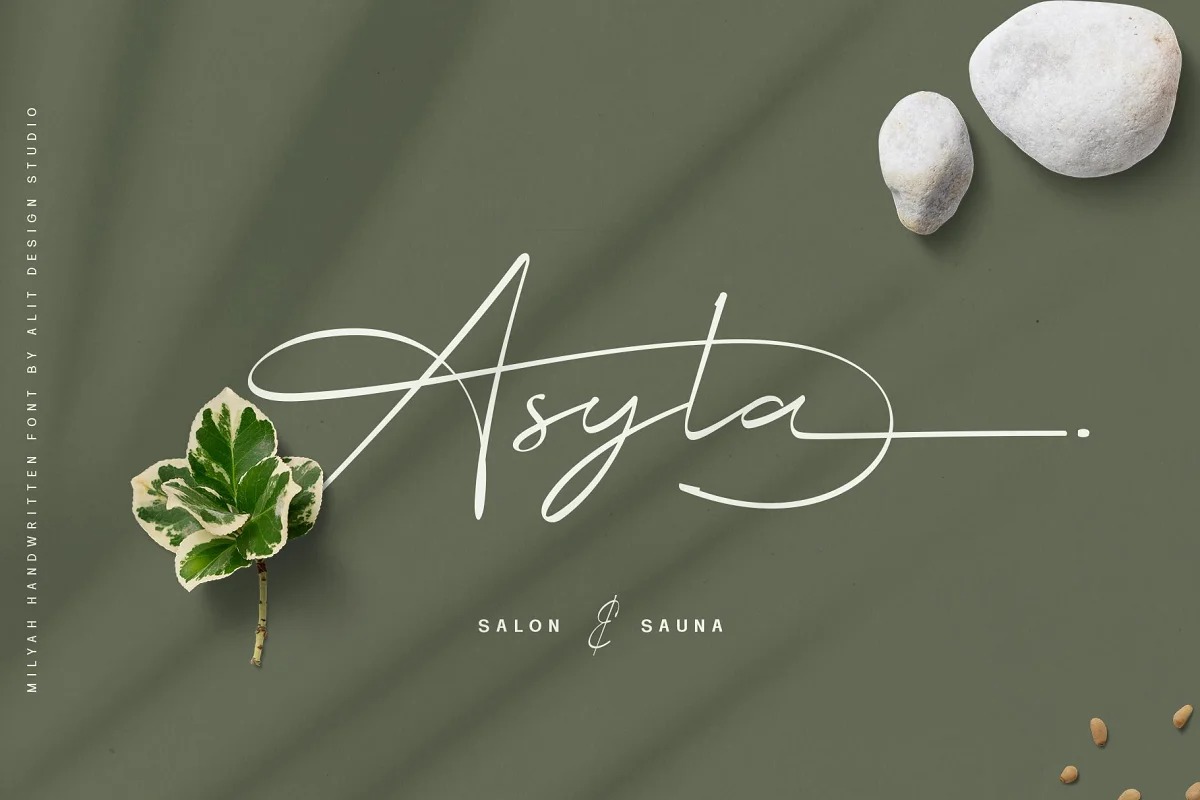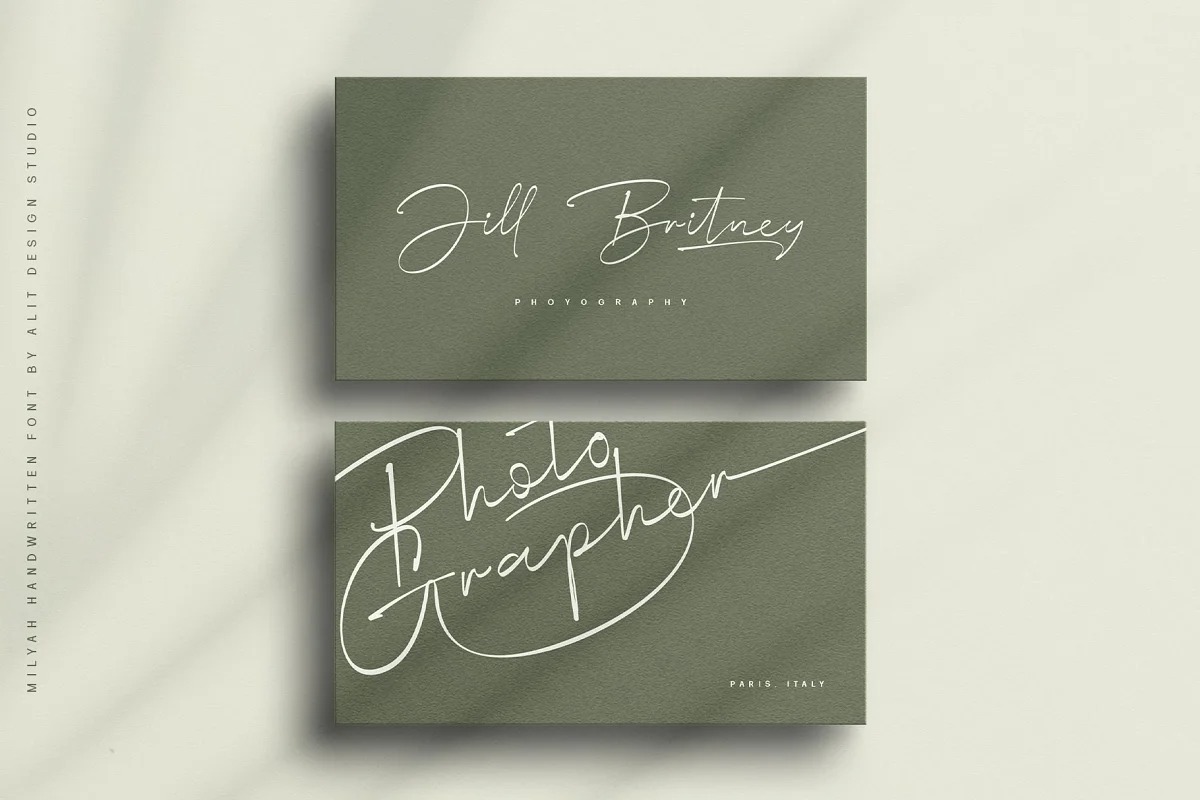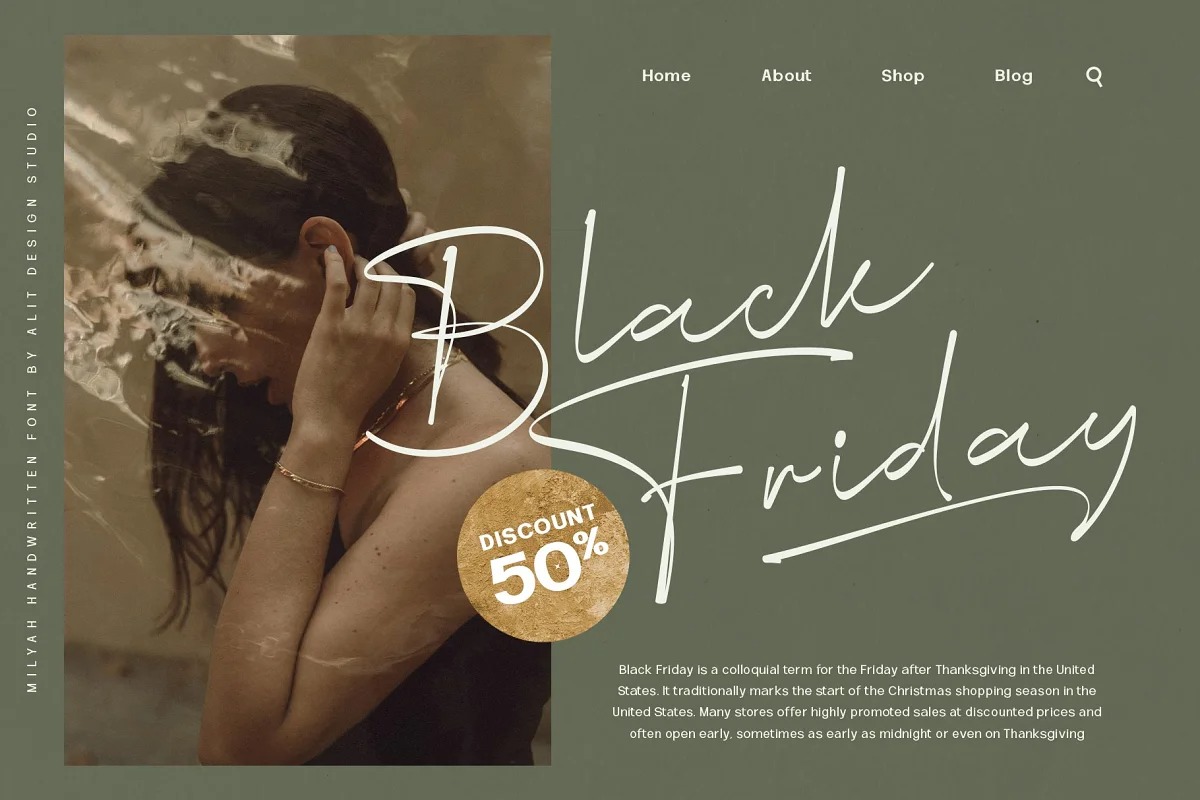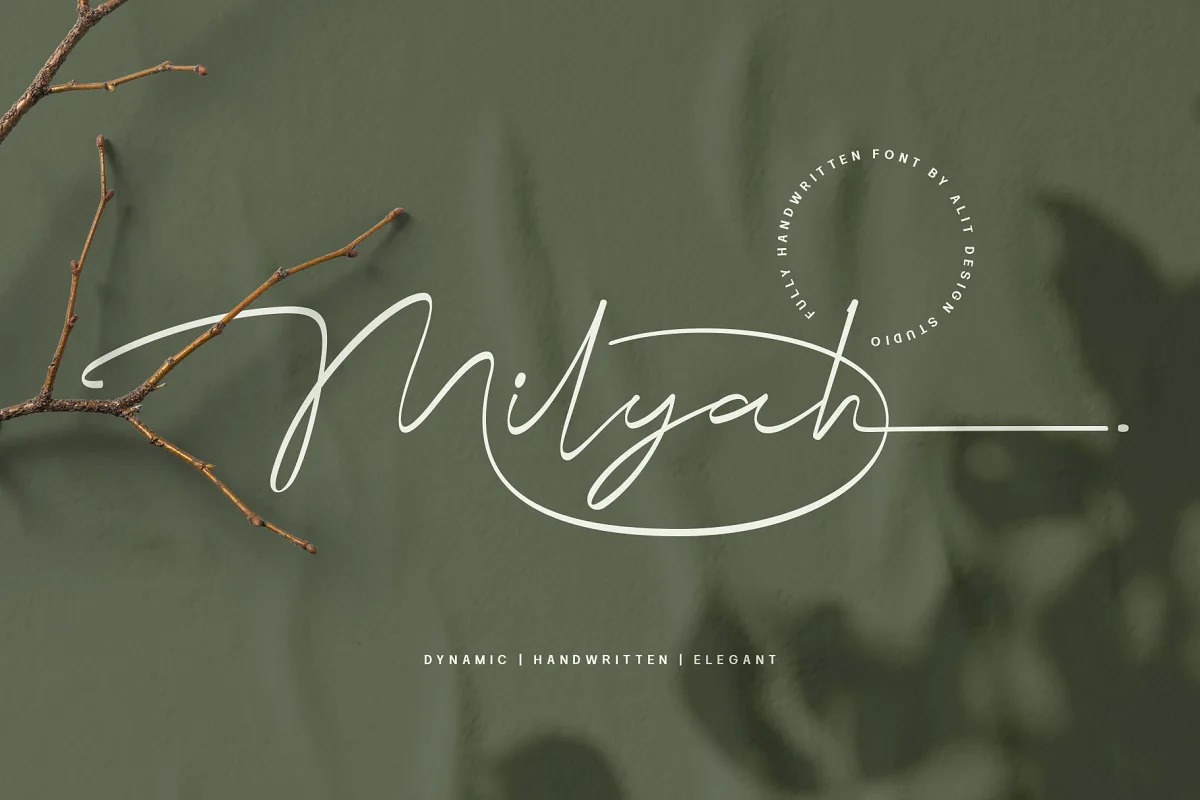
Milyah Font
Milyah Script Font
This is a delicate, elegant, and flowing script typeface. It’s designed and shared by alit design. The Milyah Signature Script font looks unique and charming which makes designs using the Milyah Signature Script look more prominent and cool. The Milyah Signature Script font is perfect for a collection of new fonts on your computer, tablet and smartphone for making unique designs or lettering.
The Milyah Signature Script font is perfect for magazine cover designs, brochures, flyers. Instagram ads, Canva Design and so on with unique and modern concepts. besides that this font is very easy to use both in design and non-design programs because everything changes and glyphs are supported by Unicode (PUA).